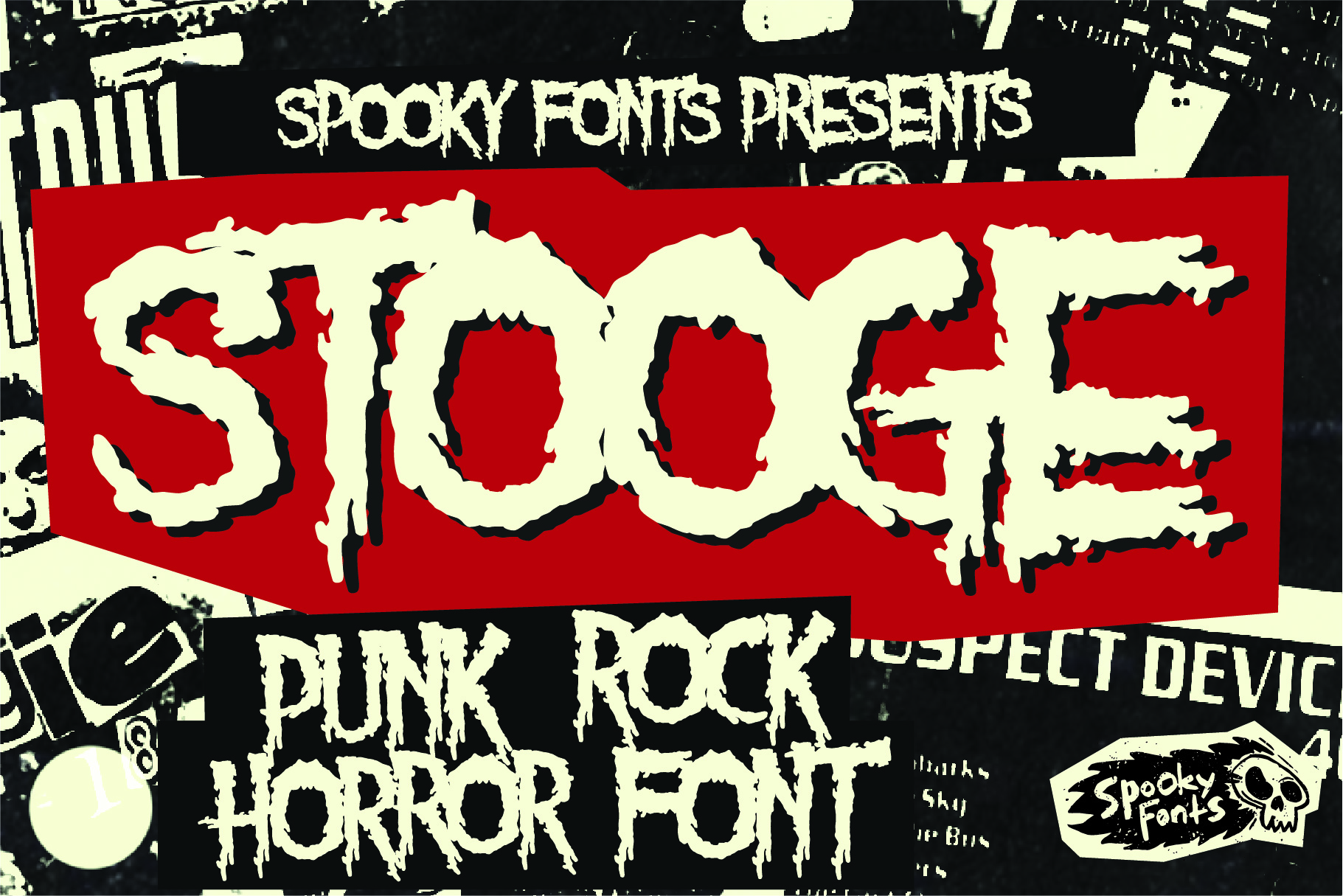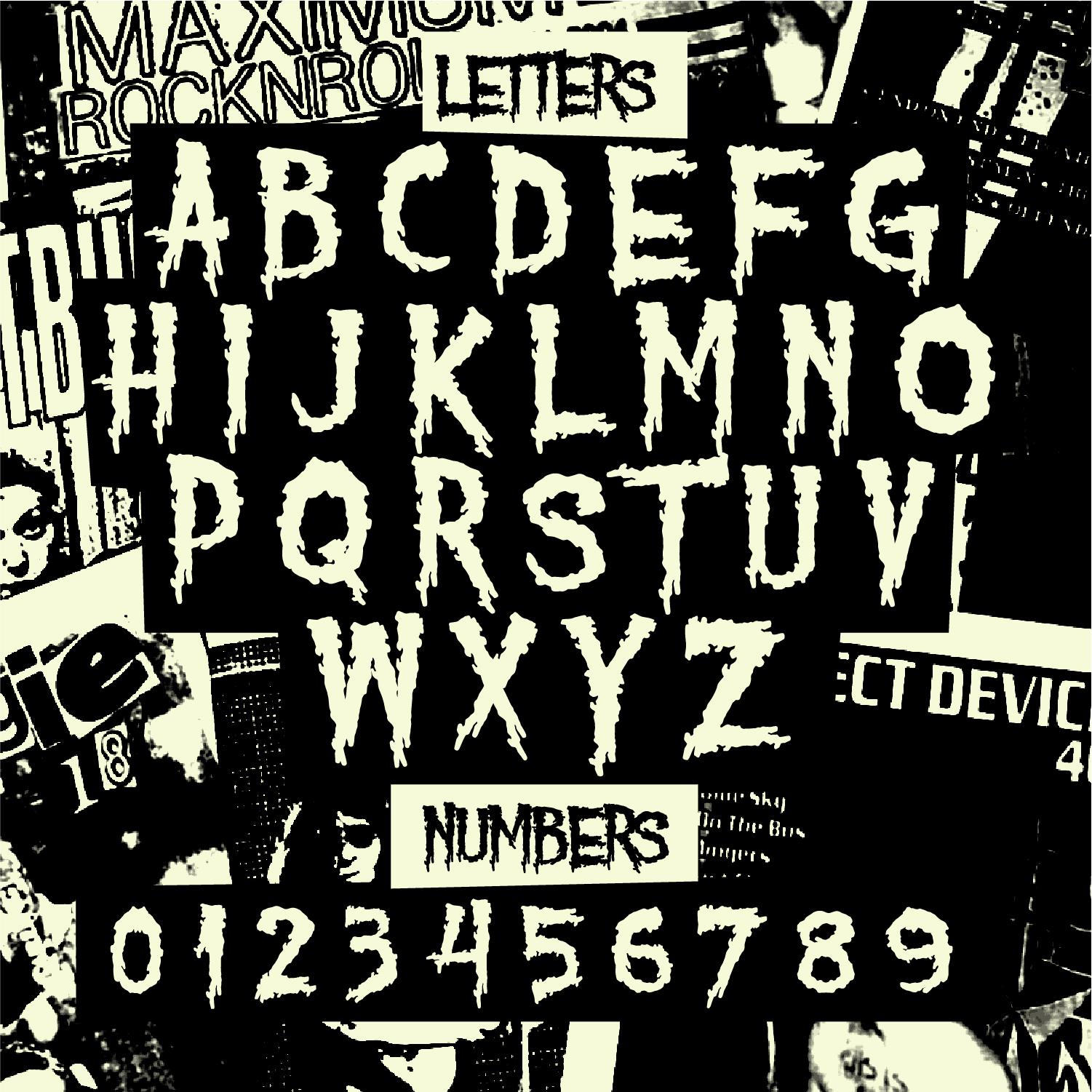
Stooge is a bold, daring typeface inspired by the Punk Rock flyers of the late 80s! Get ready to take your campaigns up a notch with this bold, in-your-face vibe that’s sure to leave an impression on any audience. Stooge captures the spirit of horror punk – it’s ghostly, ghoulish, and dangerously stylish. With its angular shapes, grueling lines, and menacing attitude, Stooge Font effortlessly conveys an edgy vibe that will instantly grab your audience’s attention.
- Uppercase Character Set A-Z with Alternates
- Letters, Numerals & Simple Punctuation